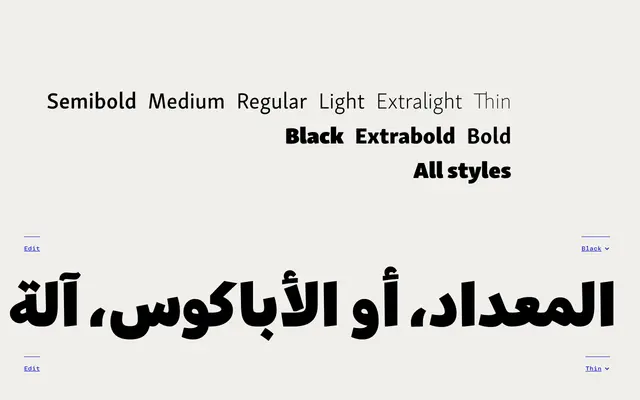
Skolar Sans Arabic
Rosetta · Titus Nemeth · 2016
A low-contrast Naskh-based Arabic text family spanning nine weights, designed for editorial and data-rich digital environments across Arabic, Persian, Urdu and over two dozen other languages.
Designed by Titus Nemeth with Latin assistance from Rosetta's team, the family brings Skolar Sans's editorial adaptability to the Arabic script. Built on Naskh typographic structures with finely tuned weight variants, it covers 30 Arabic-script languages alongside an extended Latin of 233 languages, making it a credible choice for wide-ranging multilingual publishing. A variable font is included alongside the nine static weights, giving further flexibility across screen and print contexts.
A low-contrast Naskh-style Arabic family with humanist proportions, designed for comfortable text reading across editorial and digital contexts. The Latin companion follows humanist sans conventions.